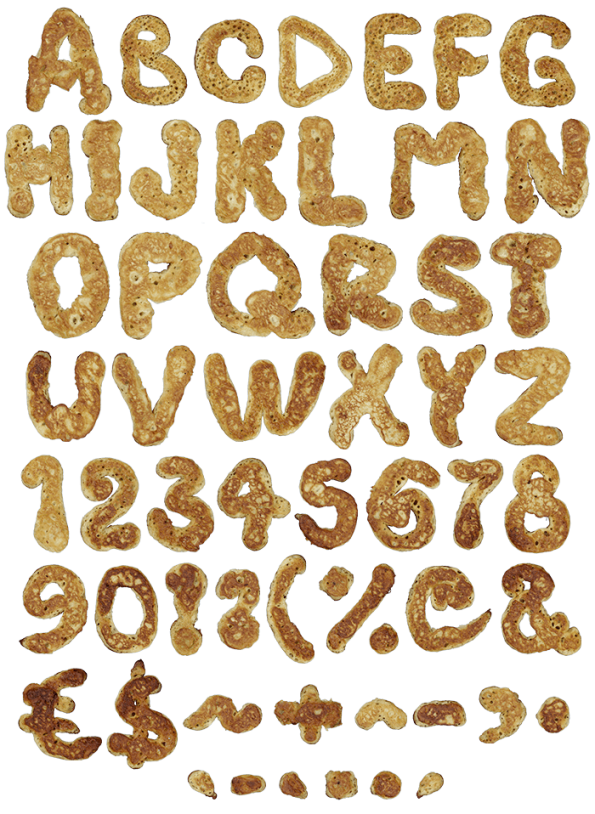
Fritters Font
Fritters font. Endless amount of options
There’s no way to get tired of pancakes or run out of new options with them: American pancakes, salty, sweet, with jam, with ham, with berries or maple syrup. We’ll leave you counting and go get some flour to bake more letters for this tasty font by Handmadefonts.
I like pancakes!
Love is a bicycle with two pancakes for wheels. You may see love as more of an exercise in hard work, but I see it as more of a breakfast on the go. Fritters font font is made of high-resolutions photos and contains of letters, symbols and numbers. Every letter has transparent background and ready for placement in your design.
This font set contains all the elements besides letters.
All letters and glyphs that comprises this font you can see on the preview.